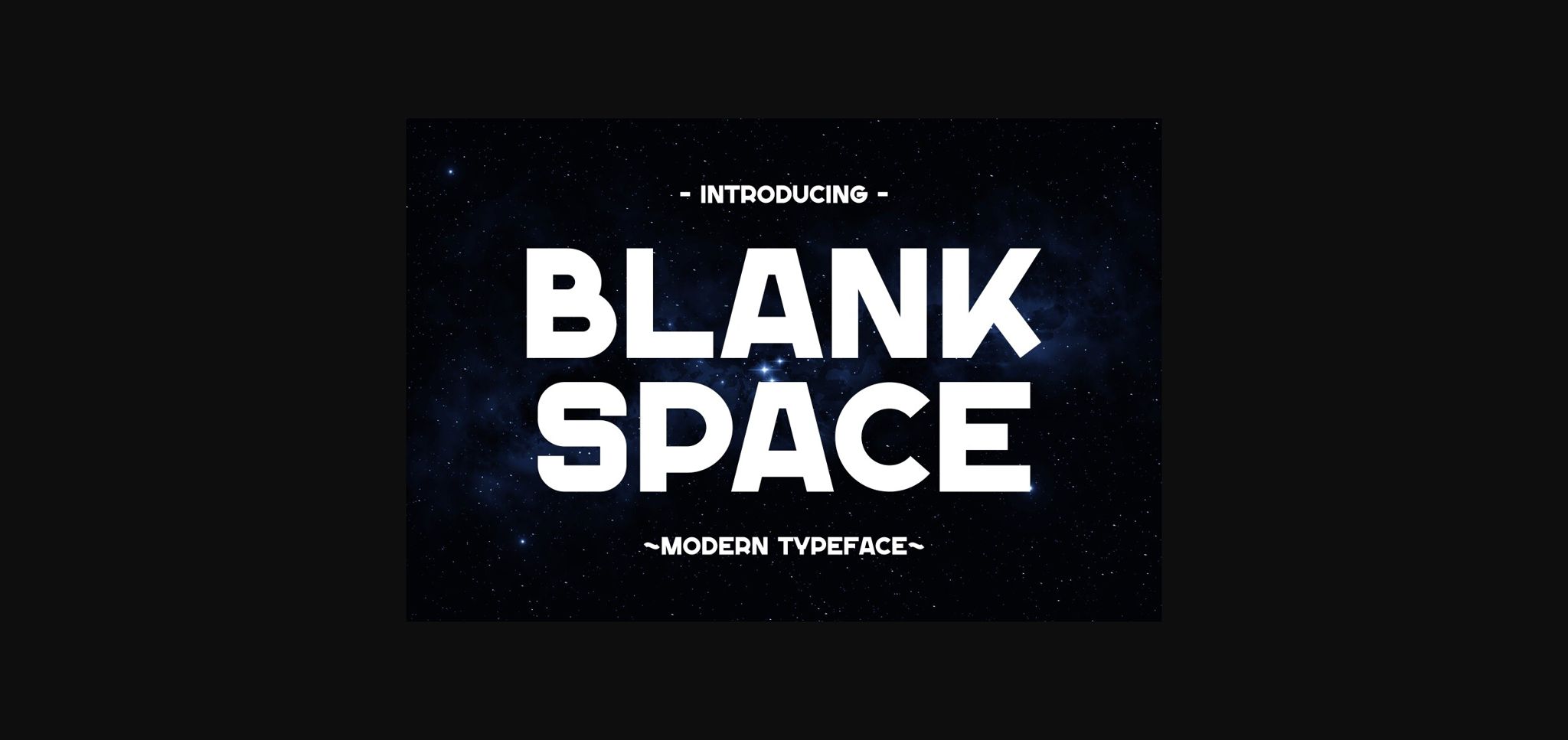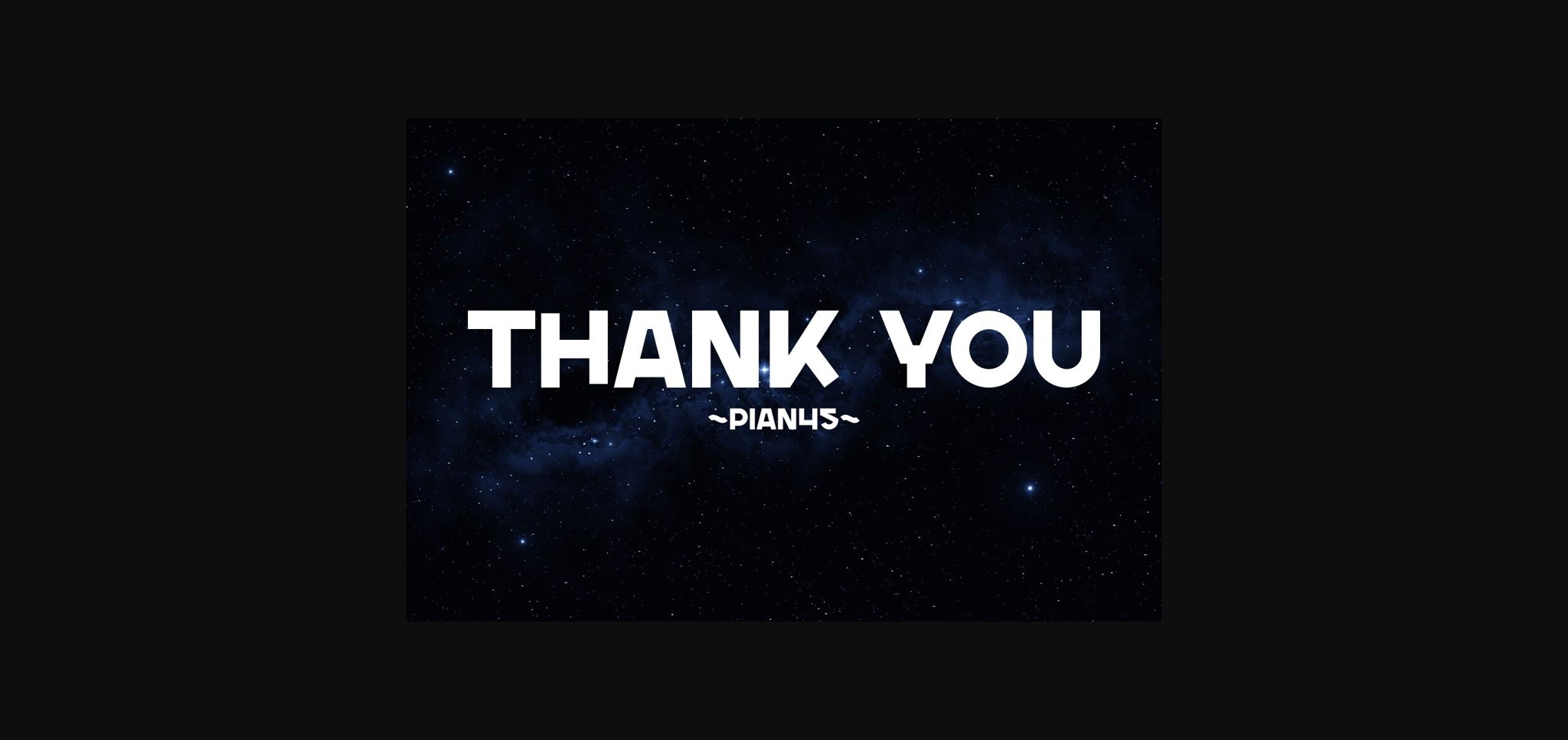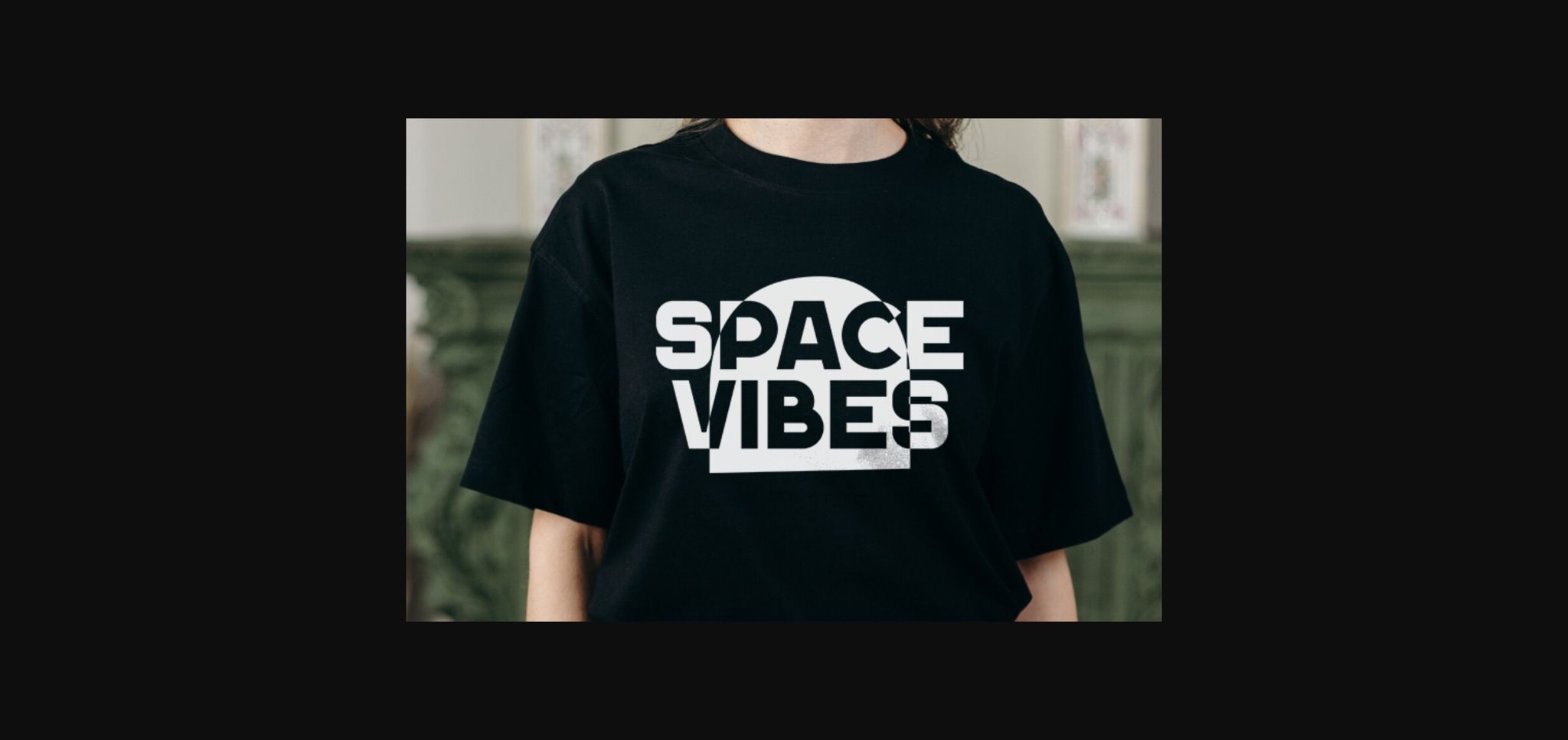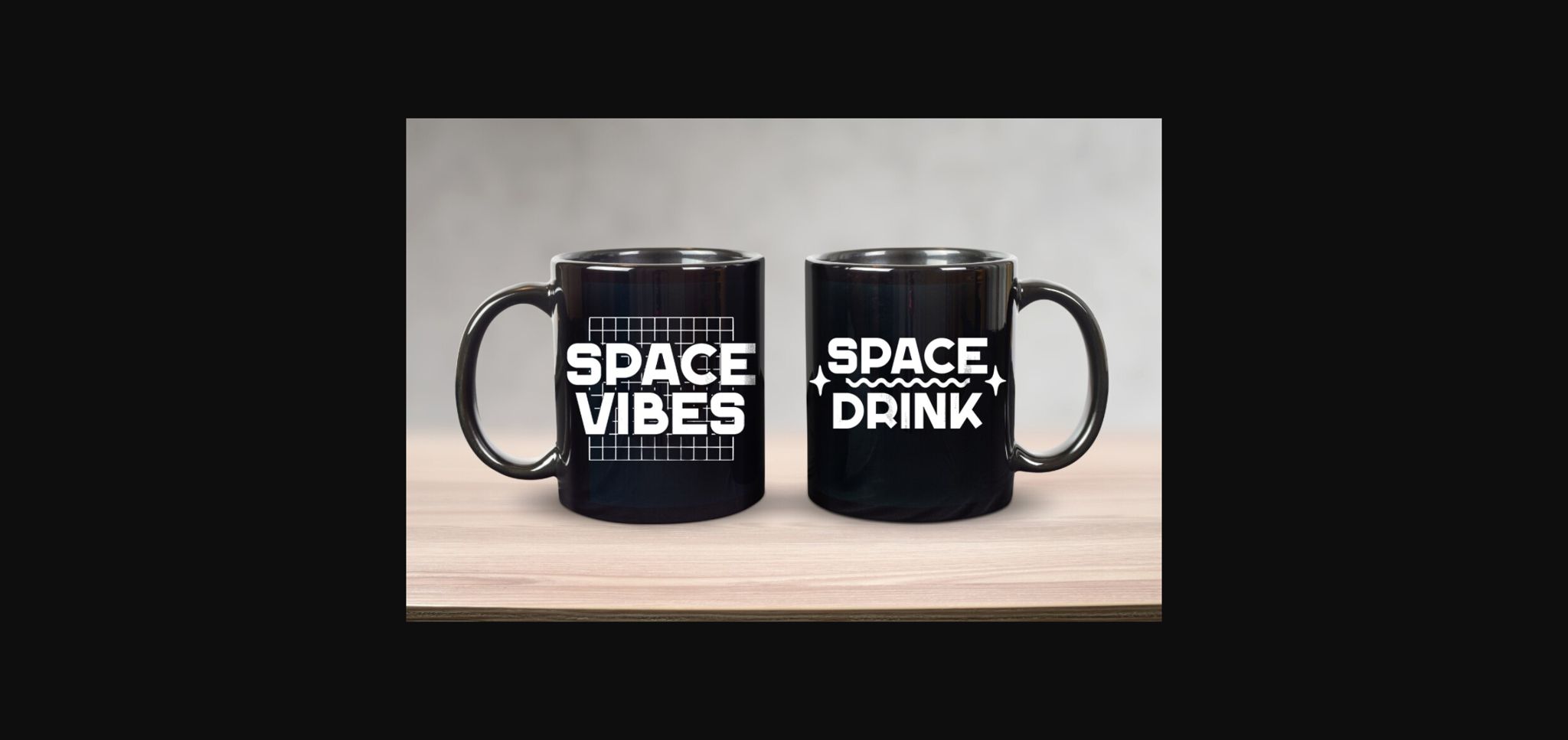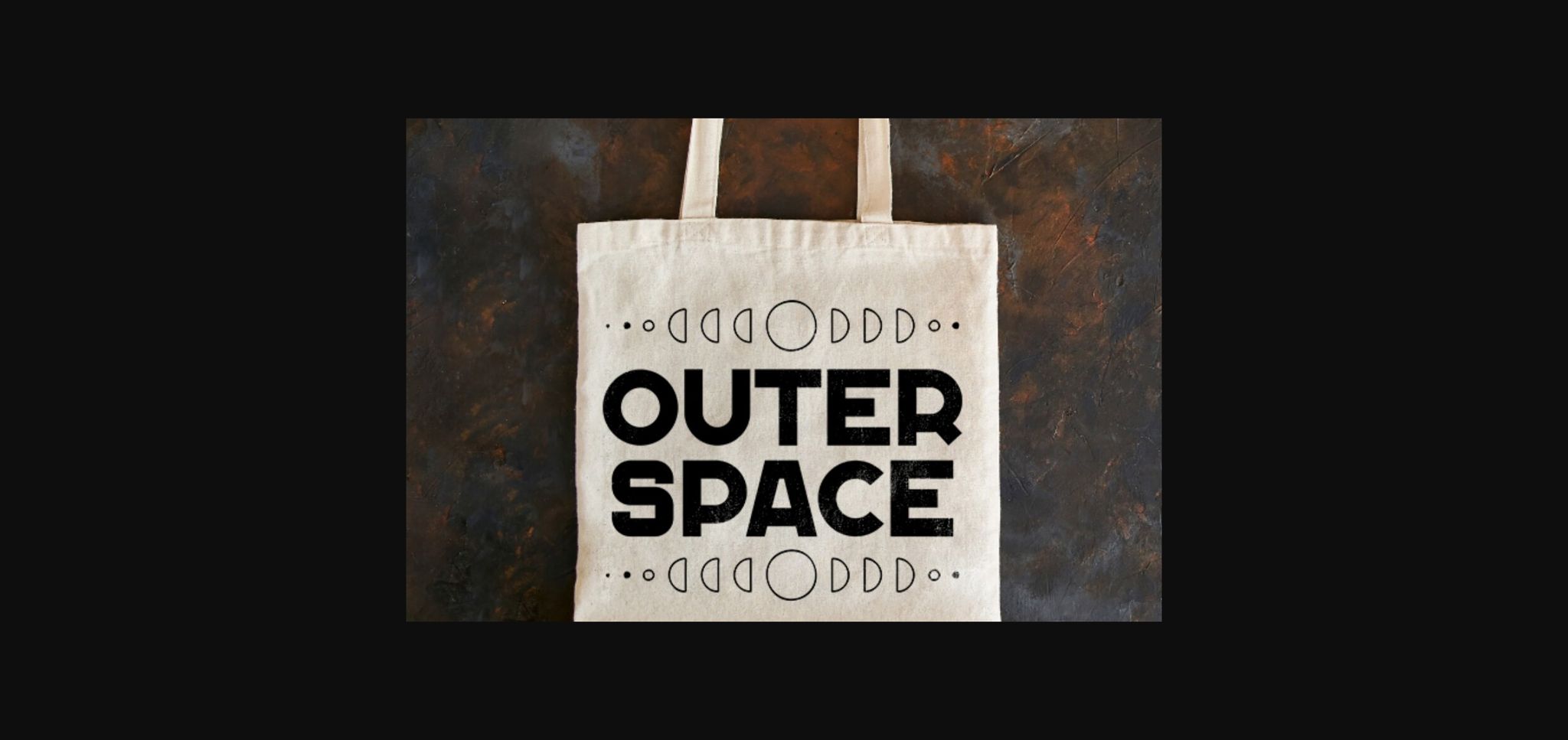
About Blank Space Font
Blank Space is a modern space font with a bold and contemporary style that explores the emptiness of outer space. Blank Space font captures the essence of cosmic voids, combining a sleek modern design with a bold weight for impactful visuals.
This font is perfect for projects that demand a minimalist yet powerful typographic presence.